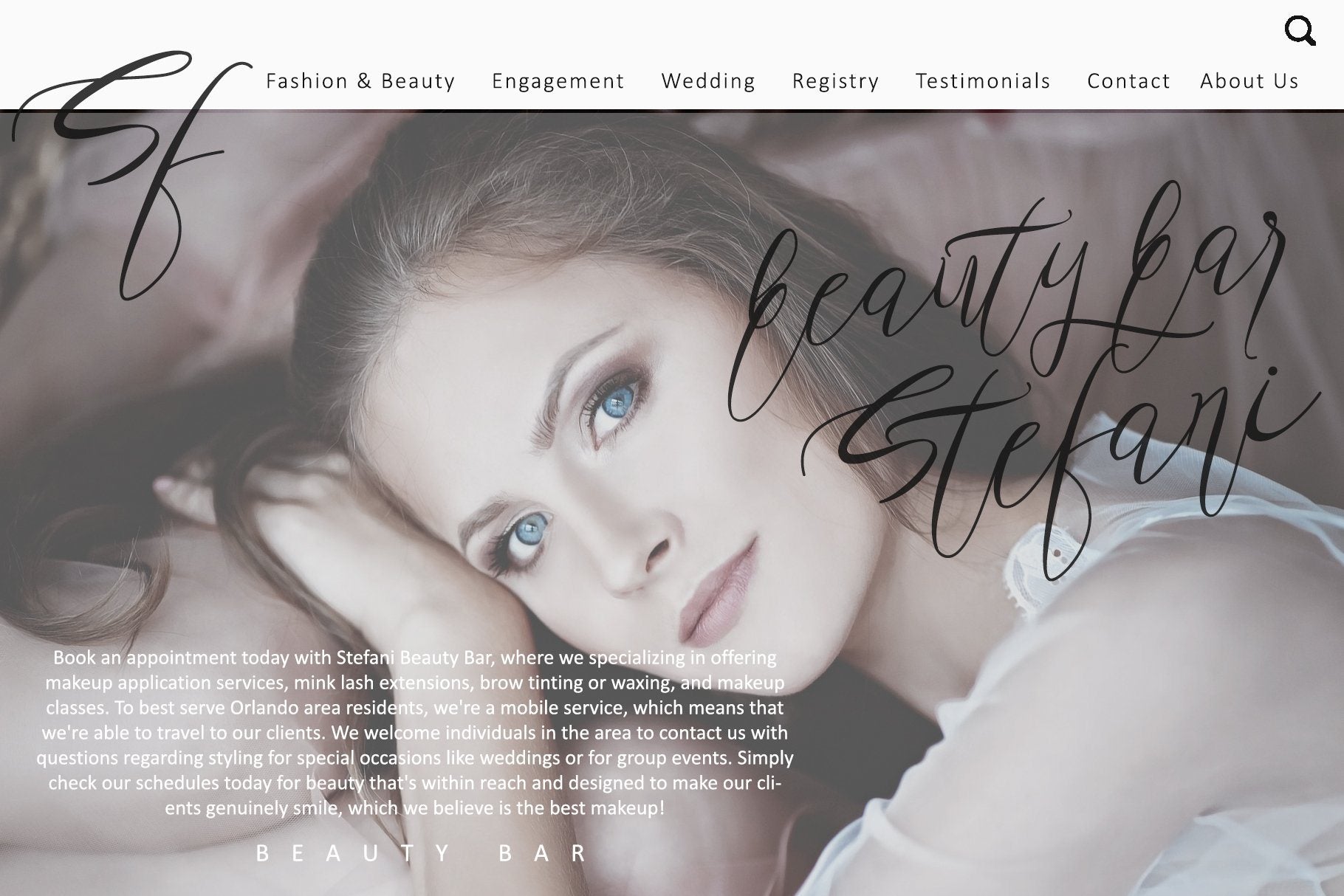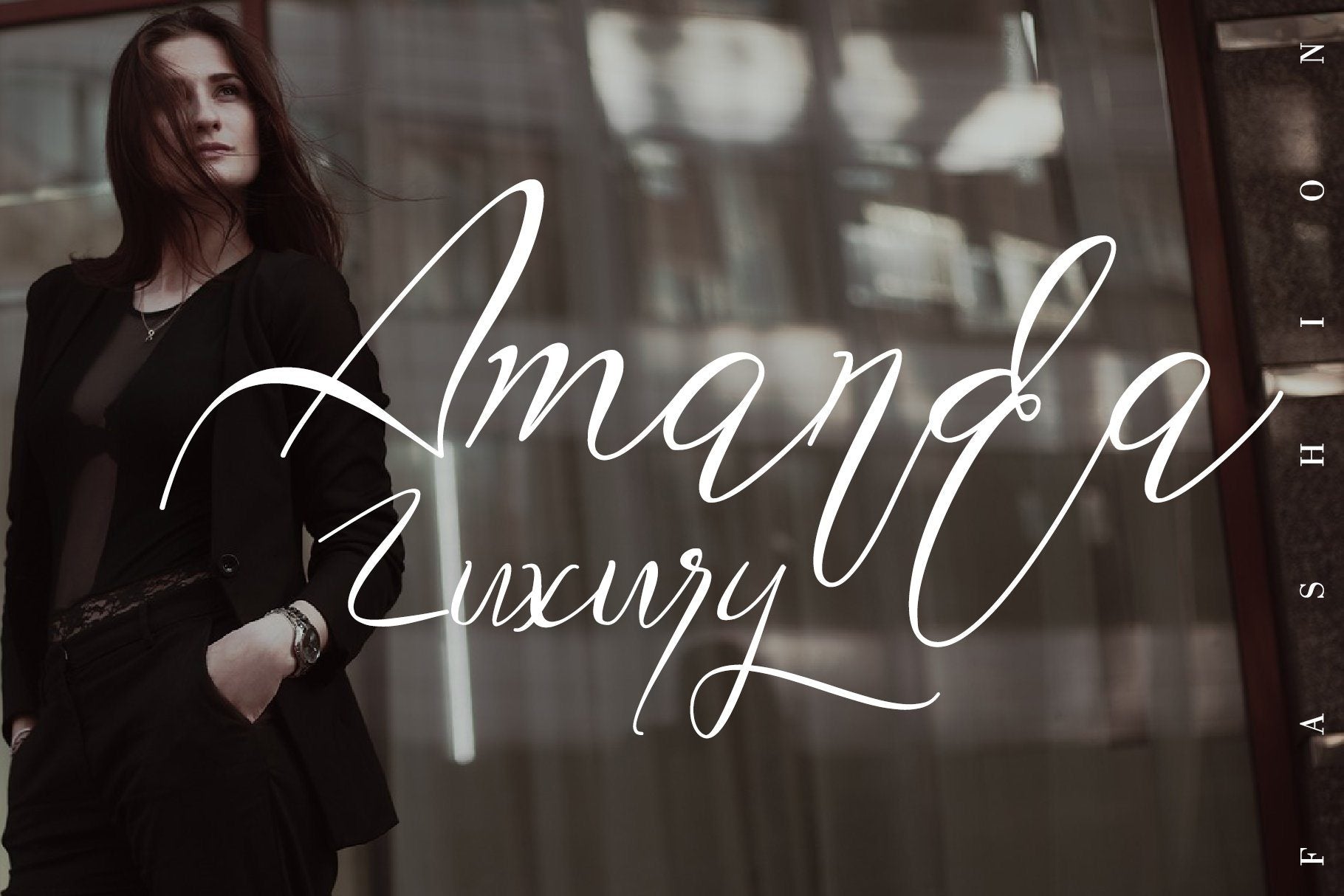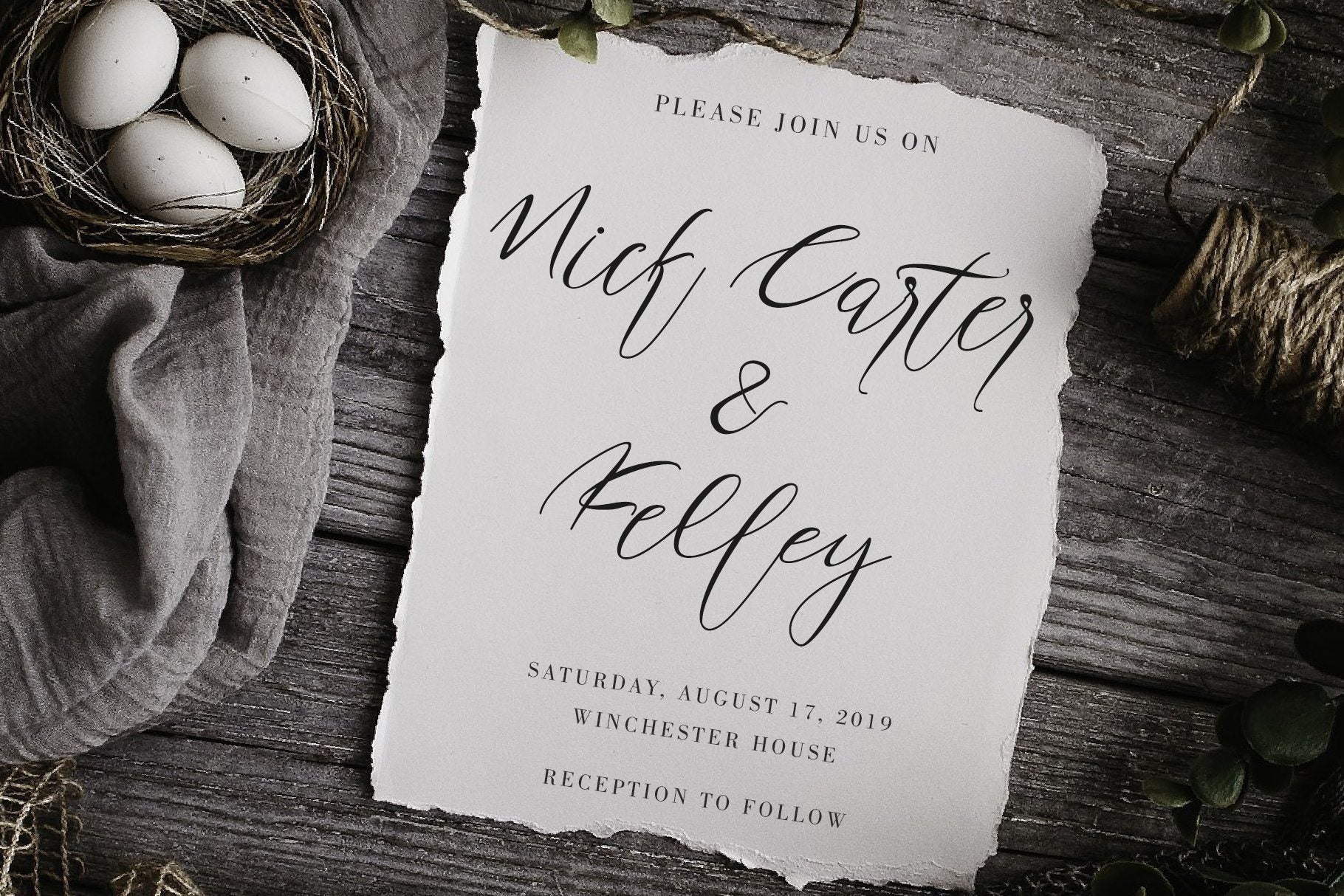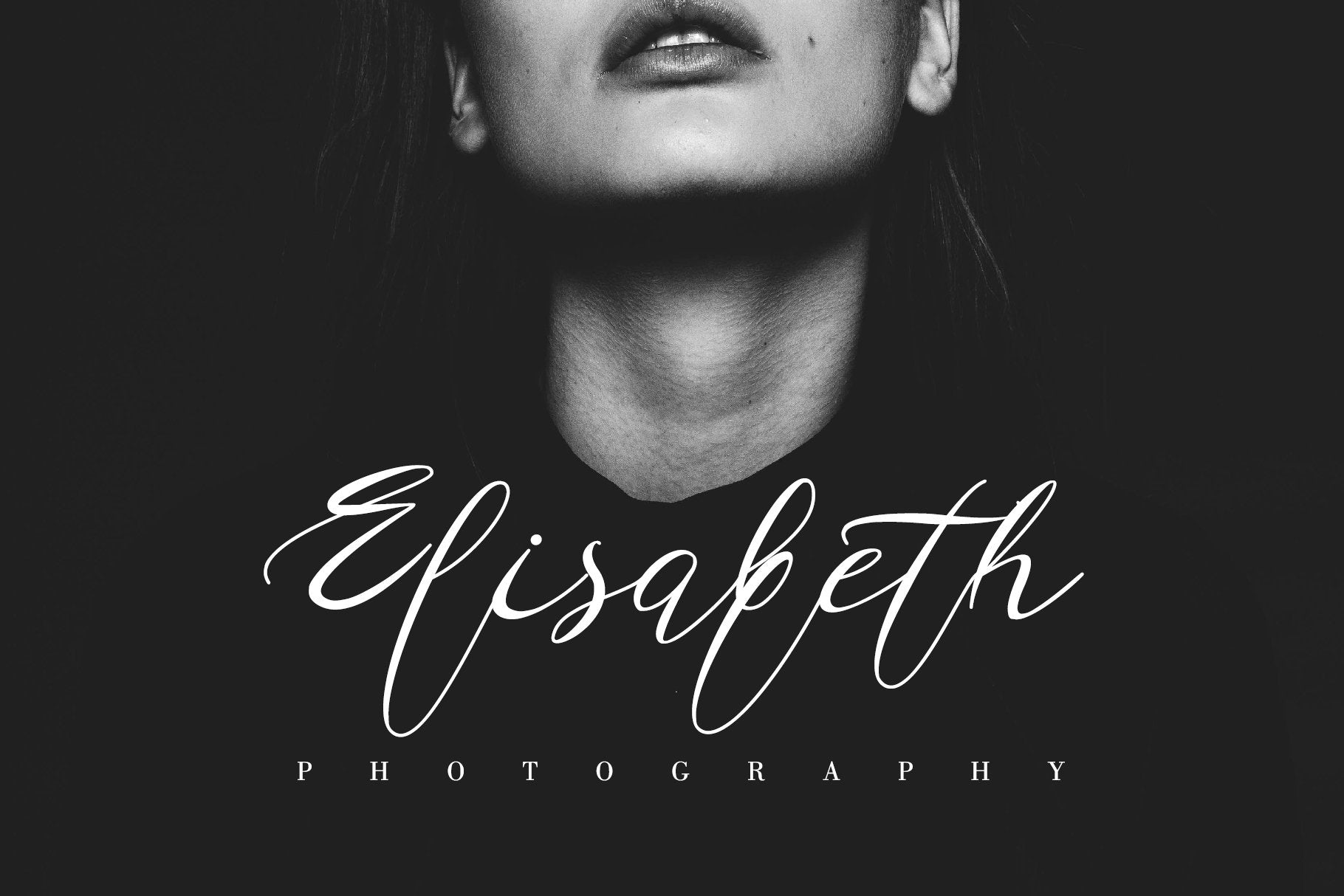
About LIMITED OFFER!! Harleyquin
Sweet, charming and full of authenticity: Harleyquin is a one-of-a-kind typeface with a personal feel. use titling to give different letter effects, making it even more elegant Thanks for checking out my store, and feel free to get in touch if you have any questions!  Features : Upper Case & Lowercase Numerals Punctuations (OpenType Standard) Accents (Multilingual characters) Titling, Ligatures, Works on PC & Mac Simple installations Accessible in the Adobe Illustrator, Adobe Photoshop, Adobe InDesign, even works on Microsoft Word. don’t wait anymore, put it in your shopping basket 🙂 and follow me, because there will be many promos! Our other products : BEST SELLER JENNIE BLACK PINK SIGNATURE ANDORA BRIGITTA HEANFFE EIFFEL IN LOVE ( FONT TRIO) BLACK PINK SUMMER HONG KONG ANGEL MALEFICENT California Street BESTOWENS FAMILY